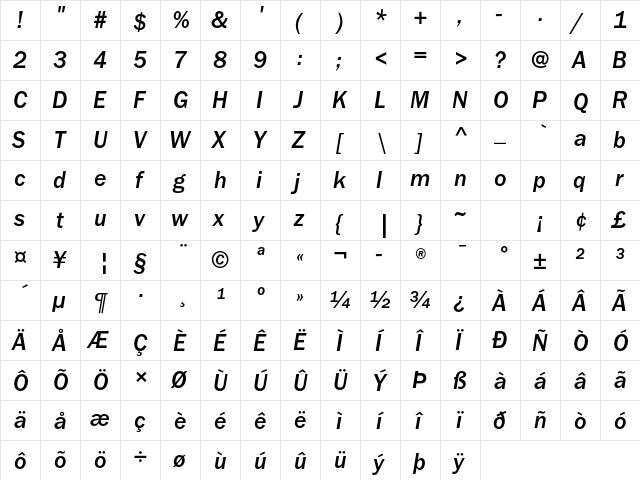
ITC Franklin Gothic Std Medium Italic Font Preview
ITC Franklin Gothic Std Medium Italic
ITC Franklin Gothic Std Medium Italic Font Details
| Style | Medium Italic |
| Designer | Vic Caruso |
Design Context for ITC Franklin Gothic Std Typeface
ITC Franklin Gothic Std has the quiet confidence of well-executed sans-serif typography: versatile, unobtrusive, and dependable at any size. The slanted form adds forward momentum and visual energy.
Font Pairing: Works well alongside a characterful serif or display font that can carry the expressive load while ITC Franklin Gothic Std handles the functional copy.
Pro Tip: Pair ITC Franklin Gothic Std with a display or serif font for headlines — its neutral character makes it an excellent supporting player in complex typographic systems.